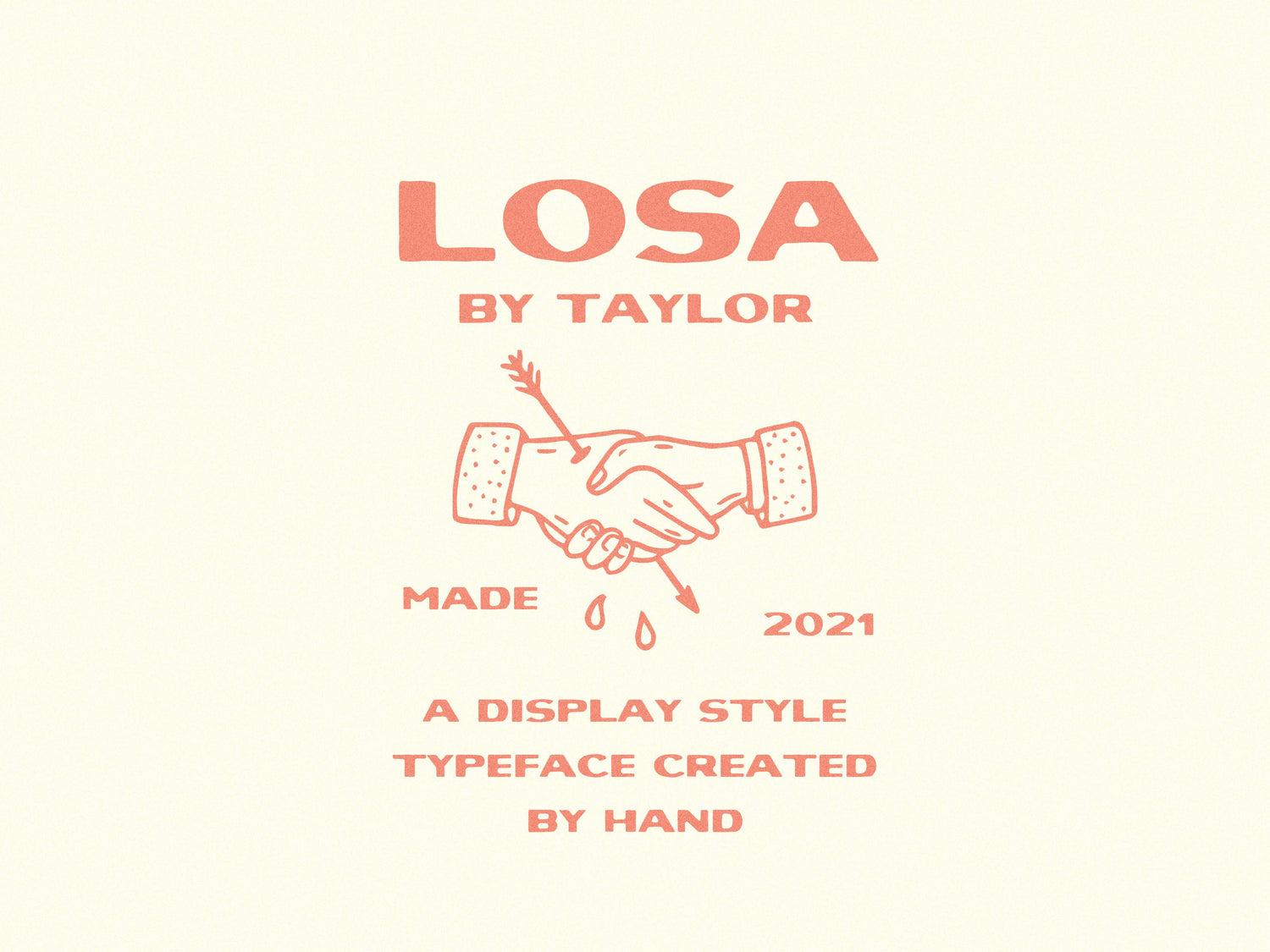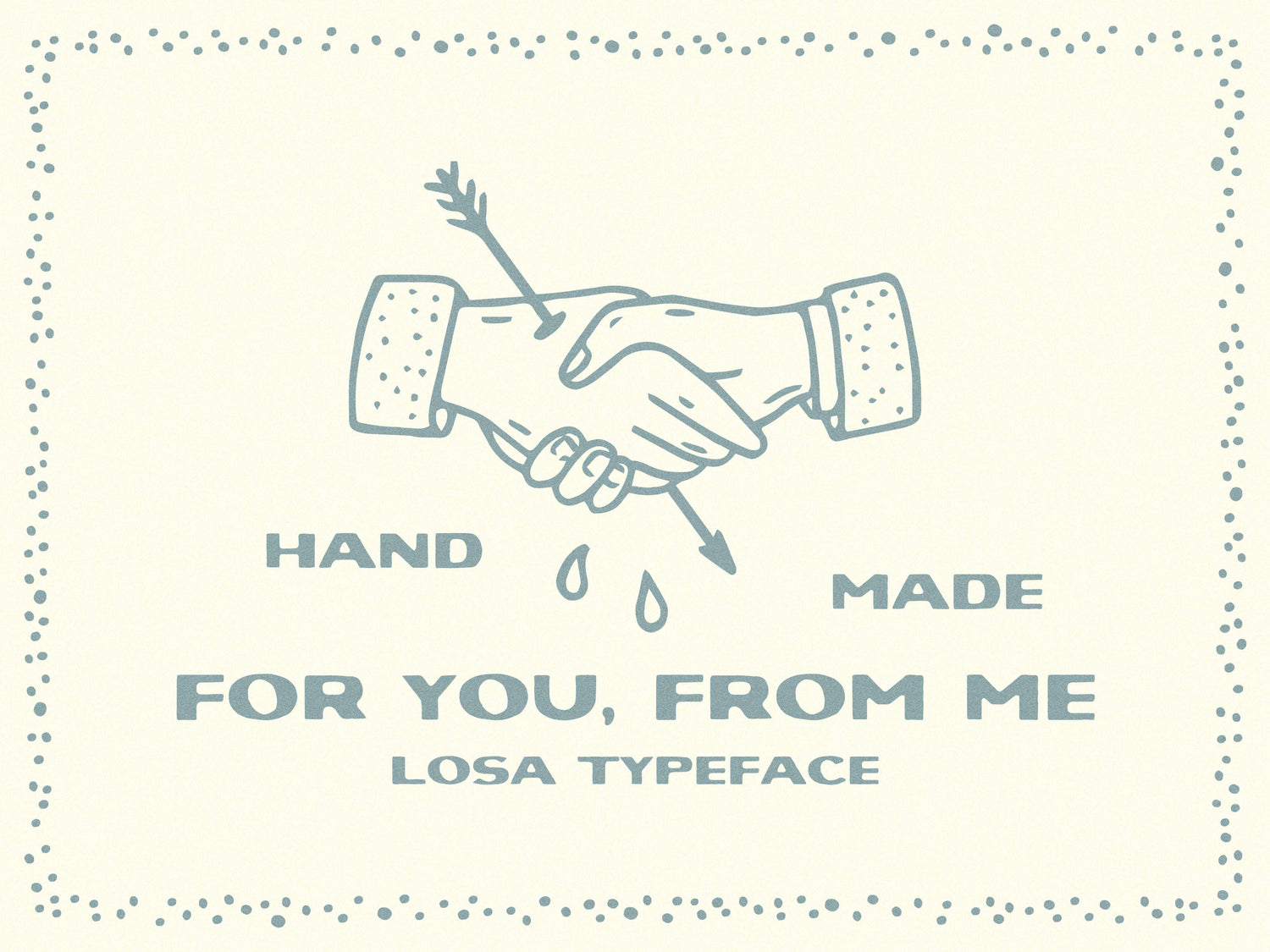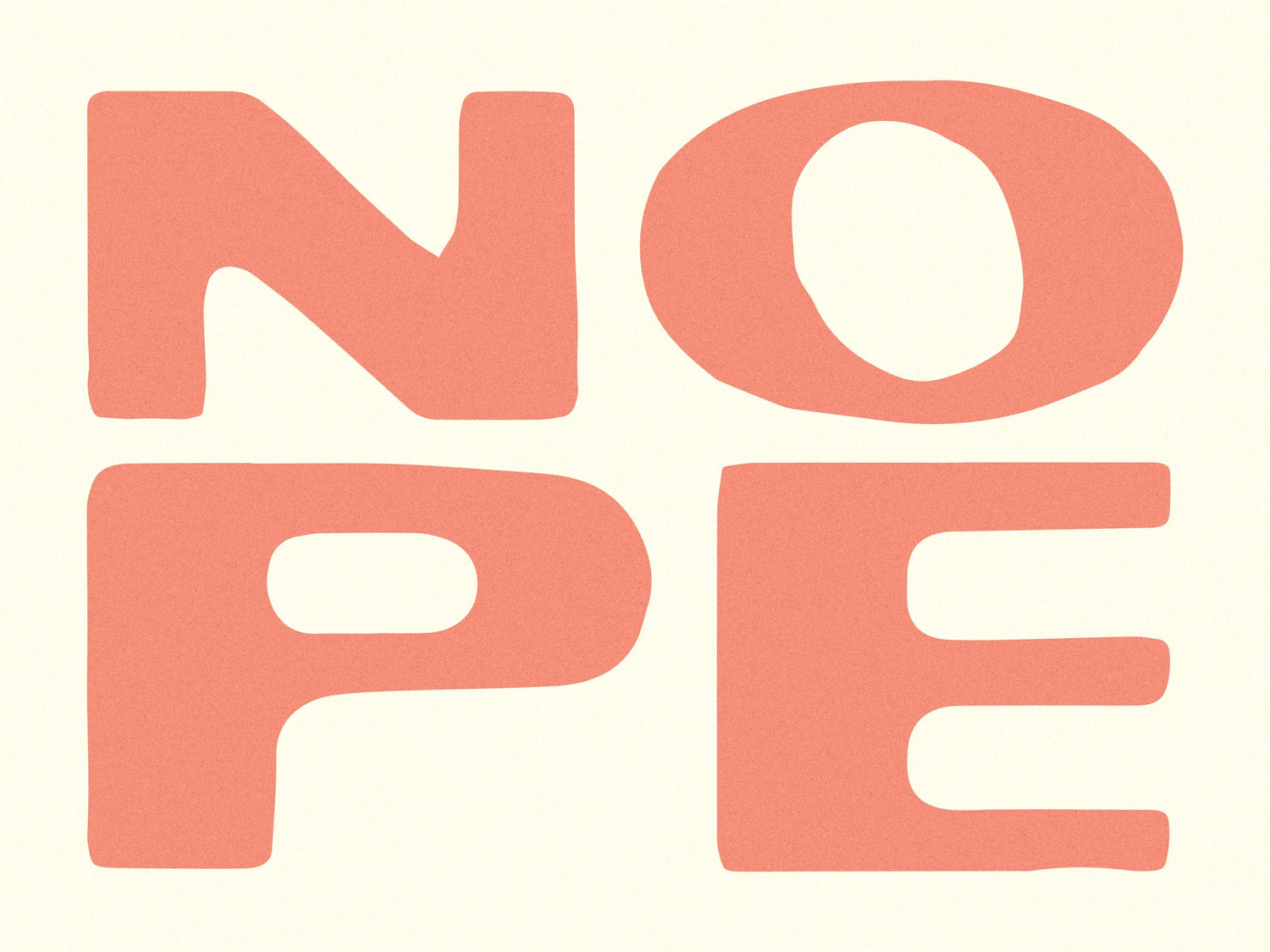
Losa
Losa is a versatile display font that feels easy and honest.
It’s organic in form, steady in structure, and built to carry more than its fair share. Use it when you need something that looks good without demanding attention.